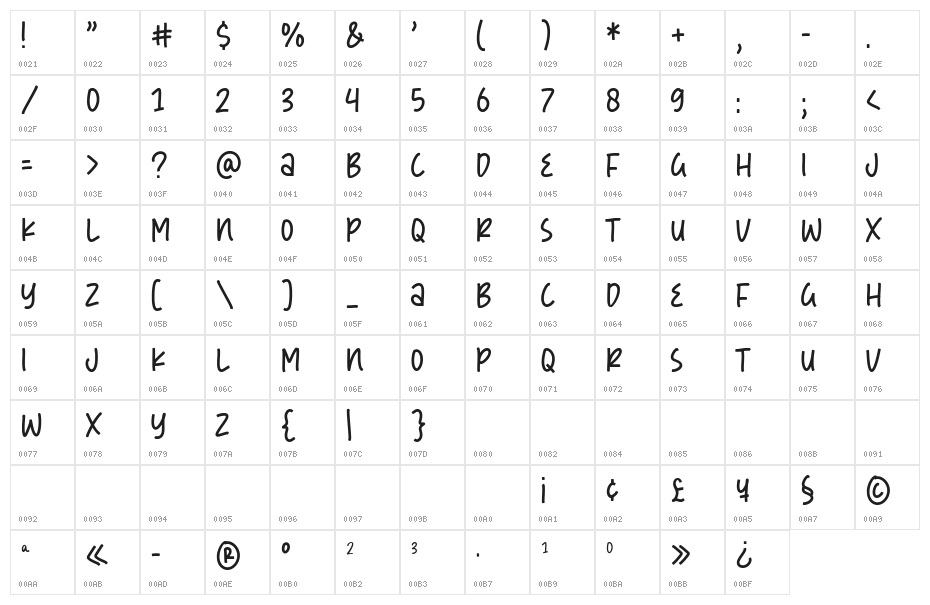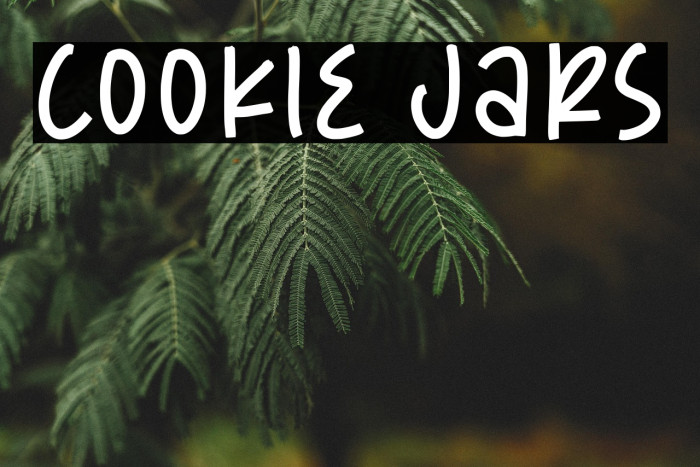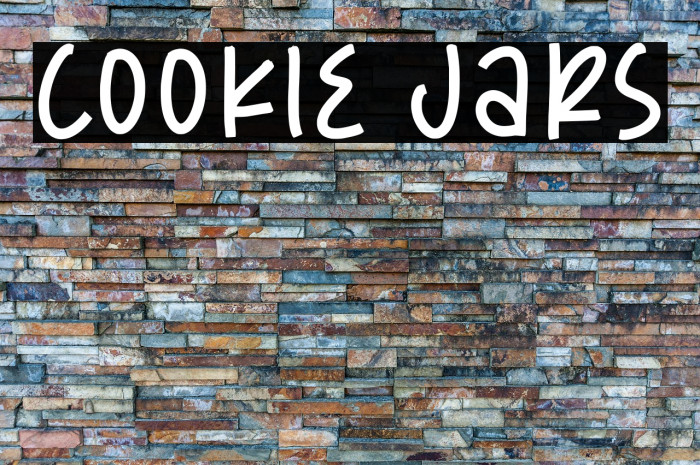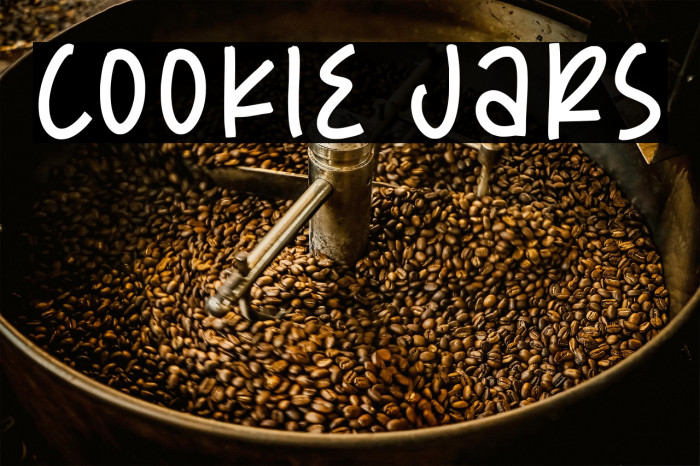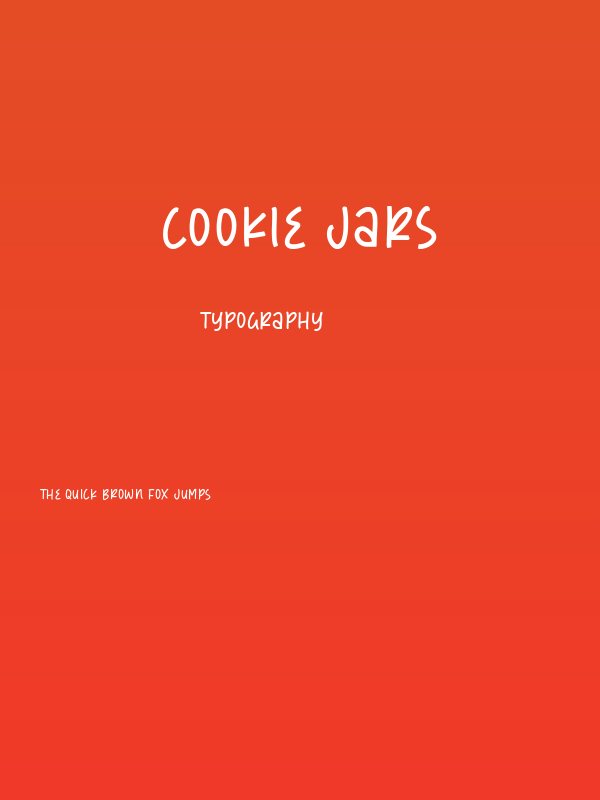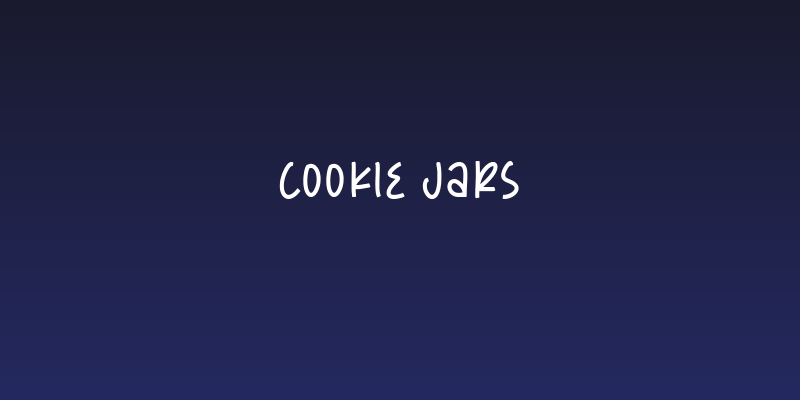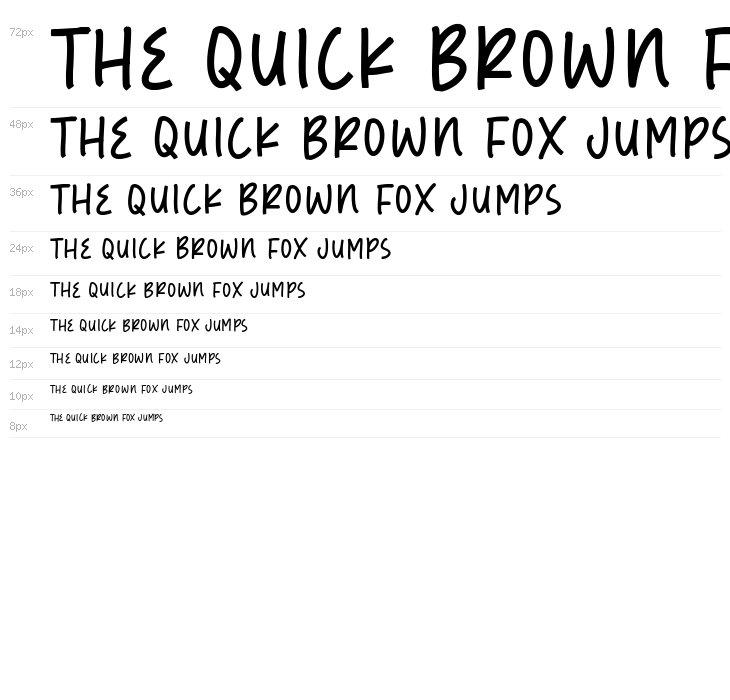
Cookie Jars Font
Cookie Jars Description
This playful and whimsical font features a handwritten style with a casual and friendly appearance. The letters are slightly irregular, adding a personal touch that mimics natural handwriting. The strokes are smooth and rounded, giving it a soft and approachable feel. The font maintains a consistent weight throughout, ensuring readability while retaining its unique character. It includes a full set of uppercase and lowercase letters, numbers, and a variety of special characters, making it versatile for various design needs.
Overall StyleCasual, Playful
Use CaseHeadlines, Informal text, Branding
Proposed ProjectsIdeal for children's books, greeting cards, playful branding, and social media graphics.